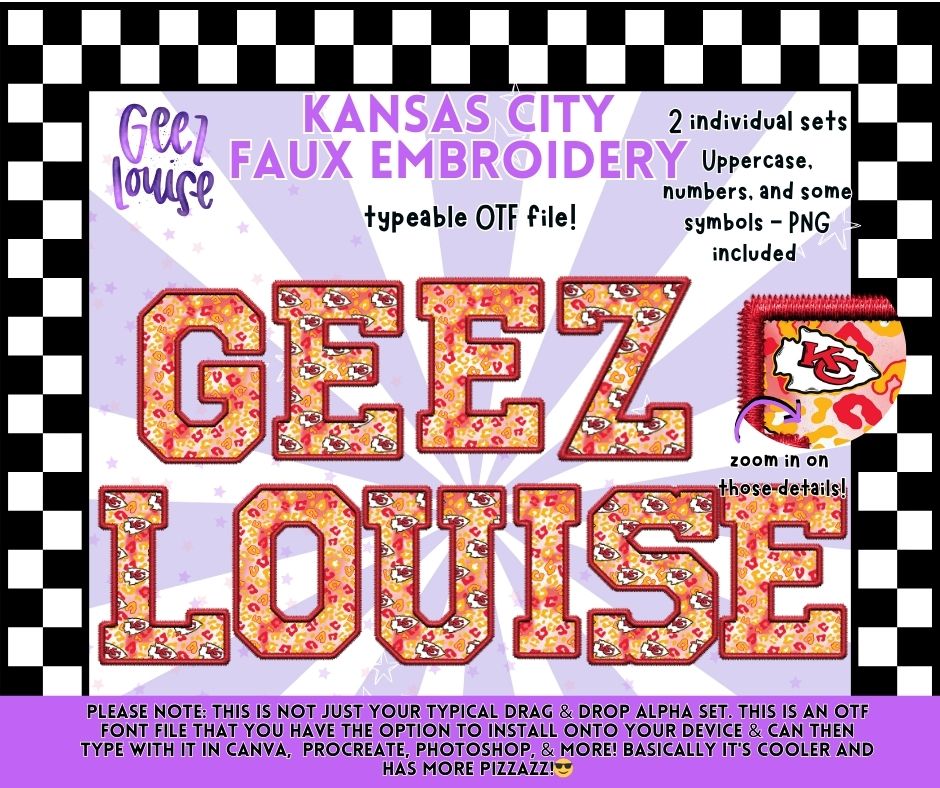
Kansas City Faux Embroidery Typeable OTF Alpha Font + PNG Sets
Crank the sass all the way up with Kansas City Faux Embroidery Alpha, a bold, stitched-up typeable OTF font bursting with leopard print, texture, and unapologetic flair.
🎨 Design Style
Colorful leopard print with faux stitched embroidery edges Bold, playful, and full of personality Perfect for tees, tumblers, sublimation, branding, social media graphics, and digital designs that need to shout (not whisper)
If you’re over basic fonts and ready for something with stitched swagger and serious pizzazz, Geez Louise delivers.